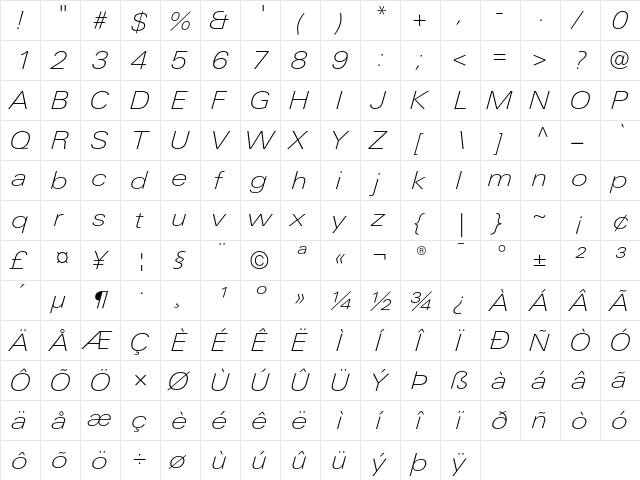
LinotypeUnivers ExtendedThinItalic
Design Context for LinotypeUnivers Typeface
LinotypeUnivers is a composed and adaptable typeface that performs quietly and consistently across a wide range of design contexts. Its italic angle brings a sense of urgency and motion to the letterforms. The delicate stroke weight brings airiness and refinement to layouts.
Pro Tip: Use LinotypeUnivers for emphasis, pull quotes, and subheadings where its slanted energy can add rhythm to the layout.